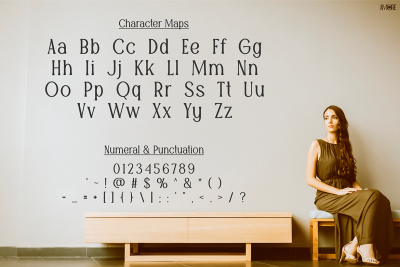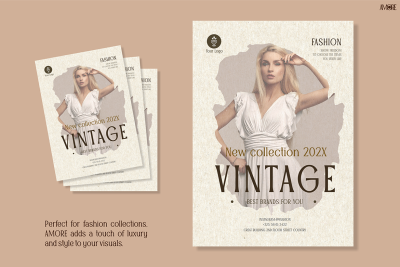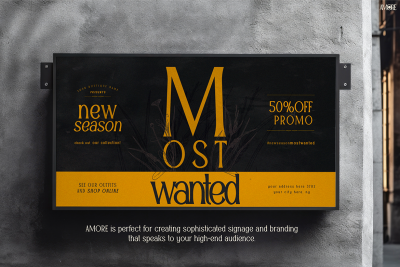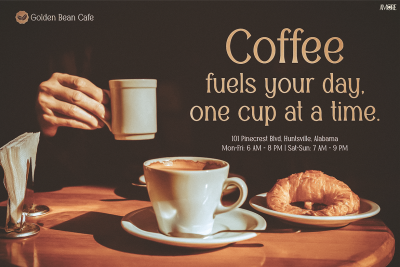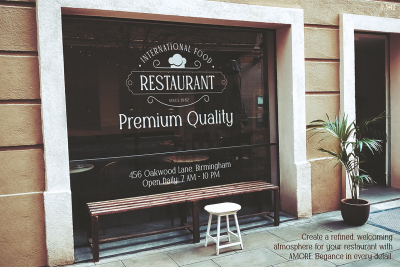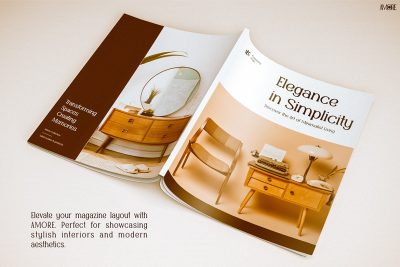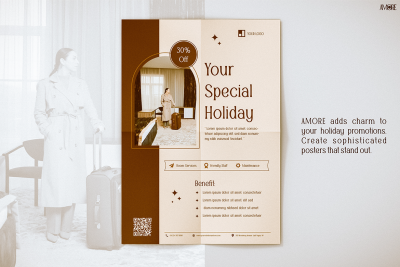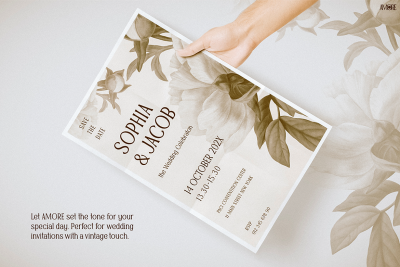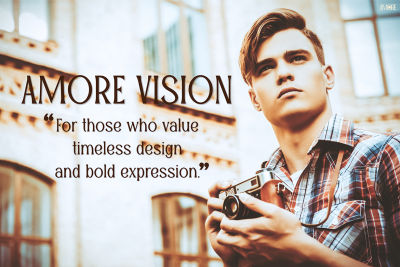
Instagram Font Amore is a stunning serif typeface designed to captivate attention and exude sophistication. Its timeless elegance combines modern design with classic appeal. The font is perfect for creating eye-catching visuals that make an impression. Each letter is carefully crafted with clean lines and a bold yet refined style. As a result, your text will stand out in any setting. Whether you’re curating an Instagram feed or designing branding materials, Instagram Font Amore elevates your work.
This font is known for its high contrast between thick and thin strokes. These elements give it a luxurious and polished look. Its graceful curves and distinctive character shapes radiate charm and creativity. Additionally, the font works well for fashion, lifestyle, and artistic projects. It is versatile enough to be used in headlines, logos, or body text. Despite its elegant style, it maintains excellent readability. For any designer looking to make a bold impression, this font is an essential choice.
Instagram Font Amore Perfect For
Instagram Font Amore is ideal for creatives and professionals aiming to make a statement with their designs.
Social media influencers and content creators can use this font to craft stylish Instagram posts and stories. Its design pairs perfectly with lifestyle, fashion, and travel content. It also helps create a cohesive and professional aesthetic that attracts followers.
For graphic designers, this font is perfect for branding projects, logos, and packaging. It is especially suitable for high-end products like cosmetics, fashion, or home goods. The luxurious feel of the font adds a unique, exclusive touch to any brand identity.
Event planners and stationery designers can use it for invitations, menus, and event signage. The elegant design leaves a lasting impression at weddings, galas, or other formal events. Its polished look also complements decorative elements while staying readable.
Entrepreneurs and small business owners can incorporate Instagram Font Amore into their branding. For example, it works beautifully for websites, business cards, or marketing materials. The combination of modernity and timeless charm enhances the brand image, making it approachable yet professional.
Even DIY enthusiasts and crafters will love this font for personal projects. It adds a refined touch to personalized gifts, scrapbook layouts, and home decor. Simple projects can feel special and elegant with this typeface.
In conclusion, Instagram Font Amore is a sophisticated serif typeface. It brings timeless beauty and modern flair to any project. Whether you’re a designer, influencer, or hobbyist, this font expresses style and makes a lasting impression.